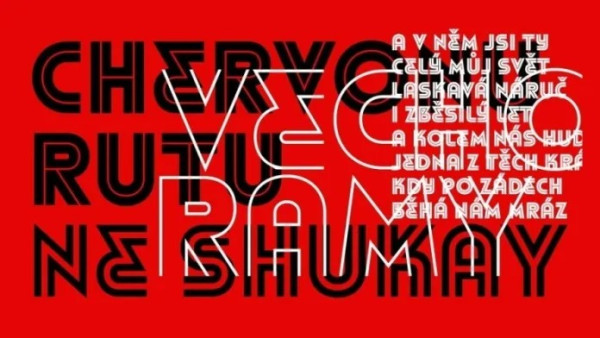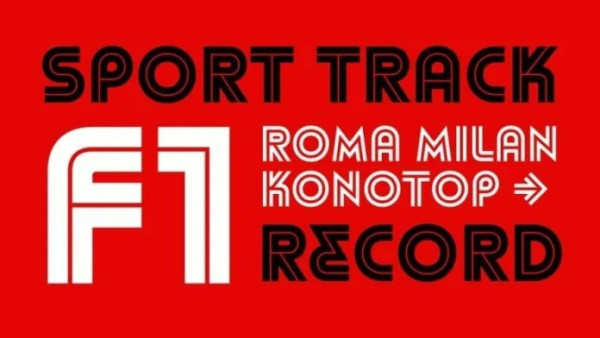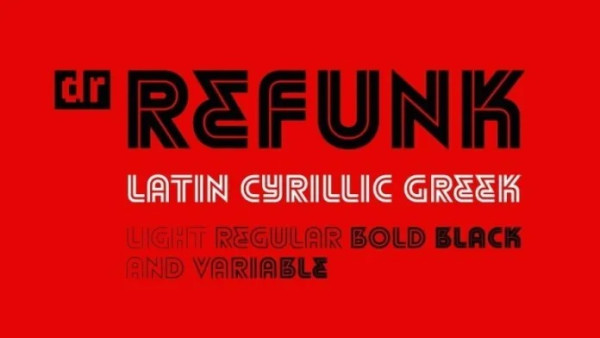
Refunk Font
Refunk Font by Dmitry Rastvortsev is a stripped geometric font in the traditions of modernism. Its lines blended with a stronger letterform, creating a visually more dynamic typeface.
The font is a perfect choice for posters, captions, editorial, packaging, as well as branding projects.